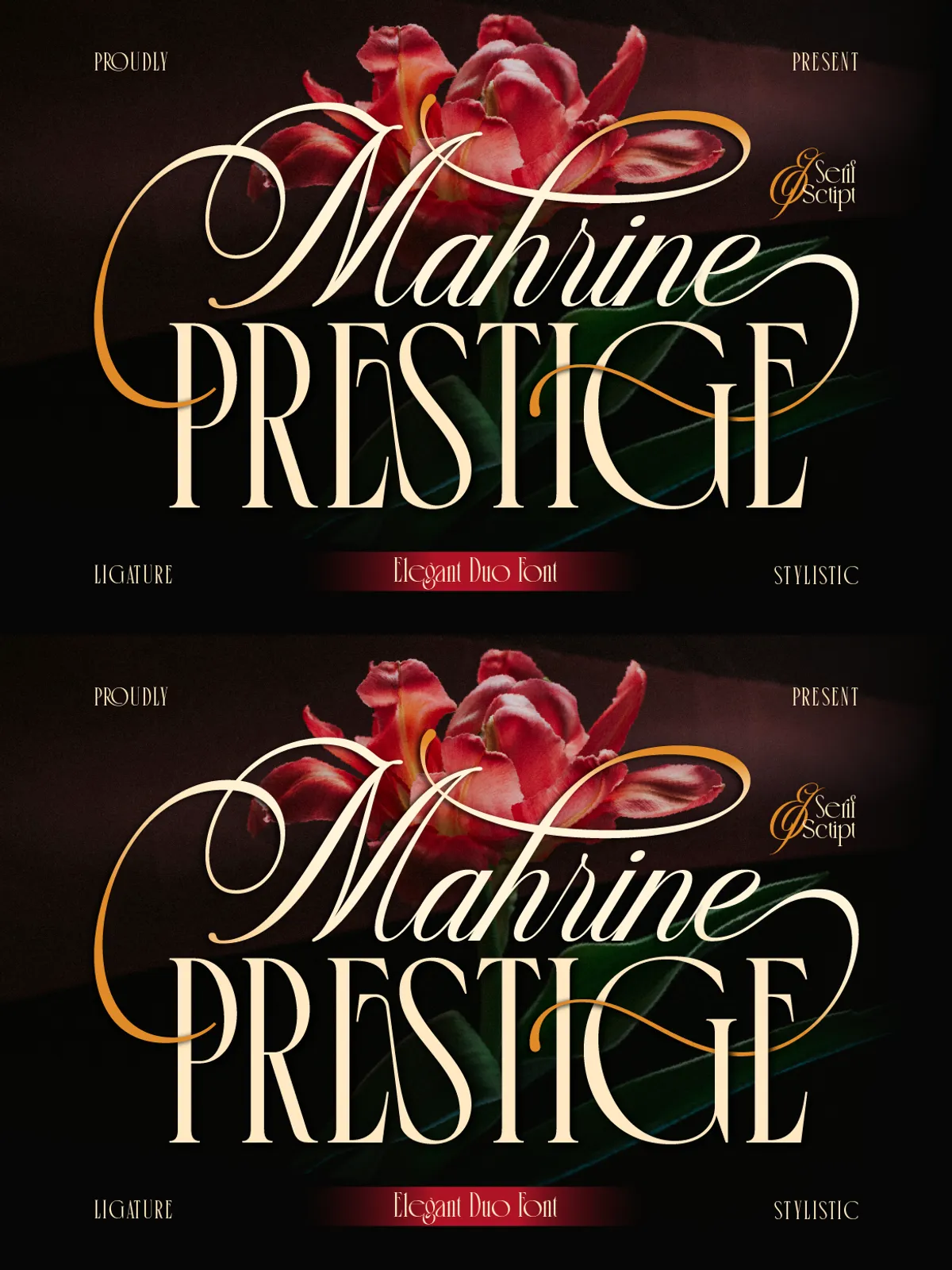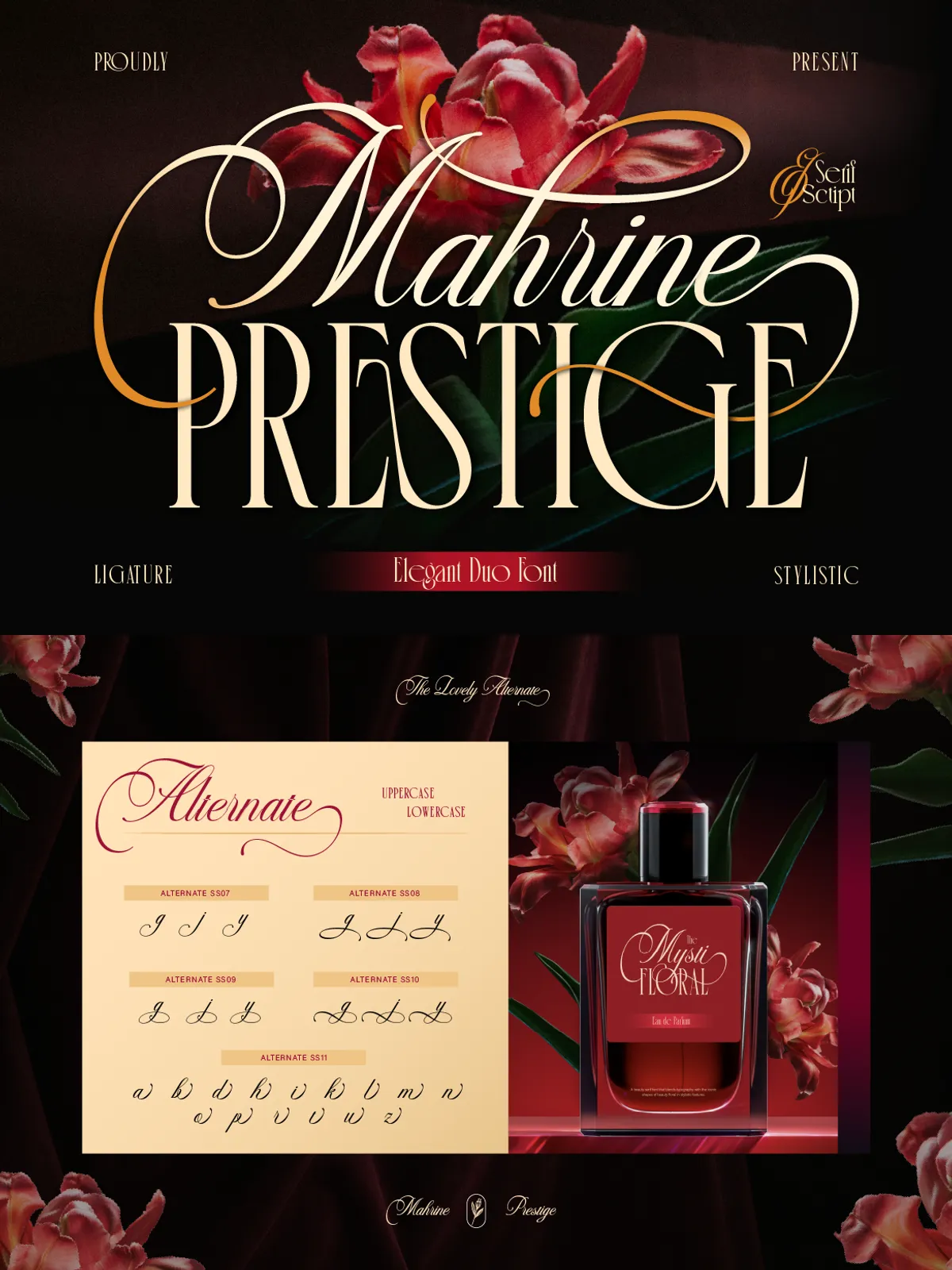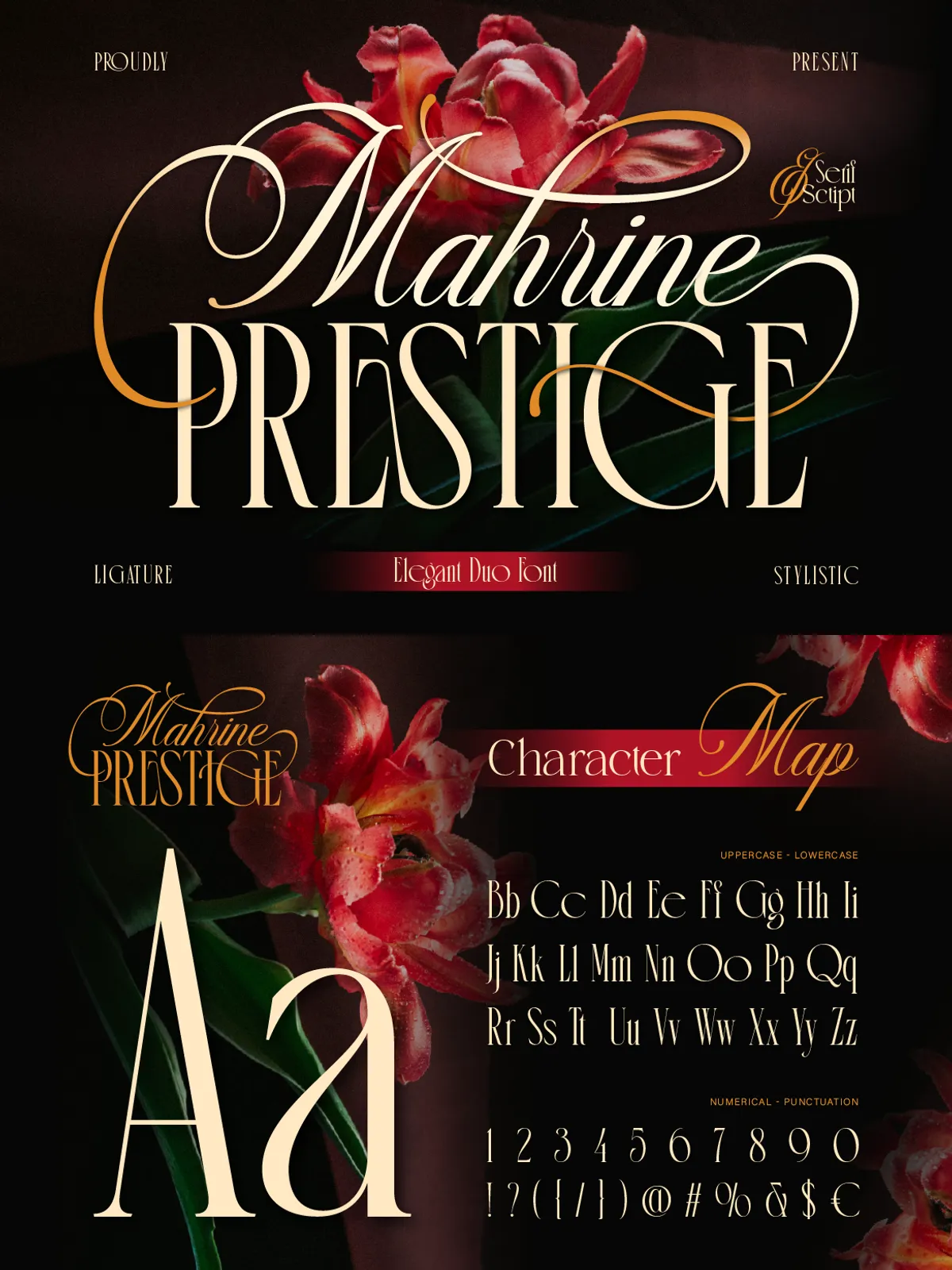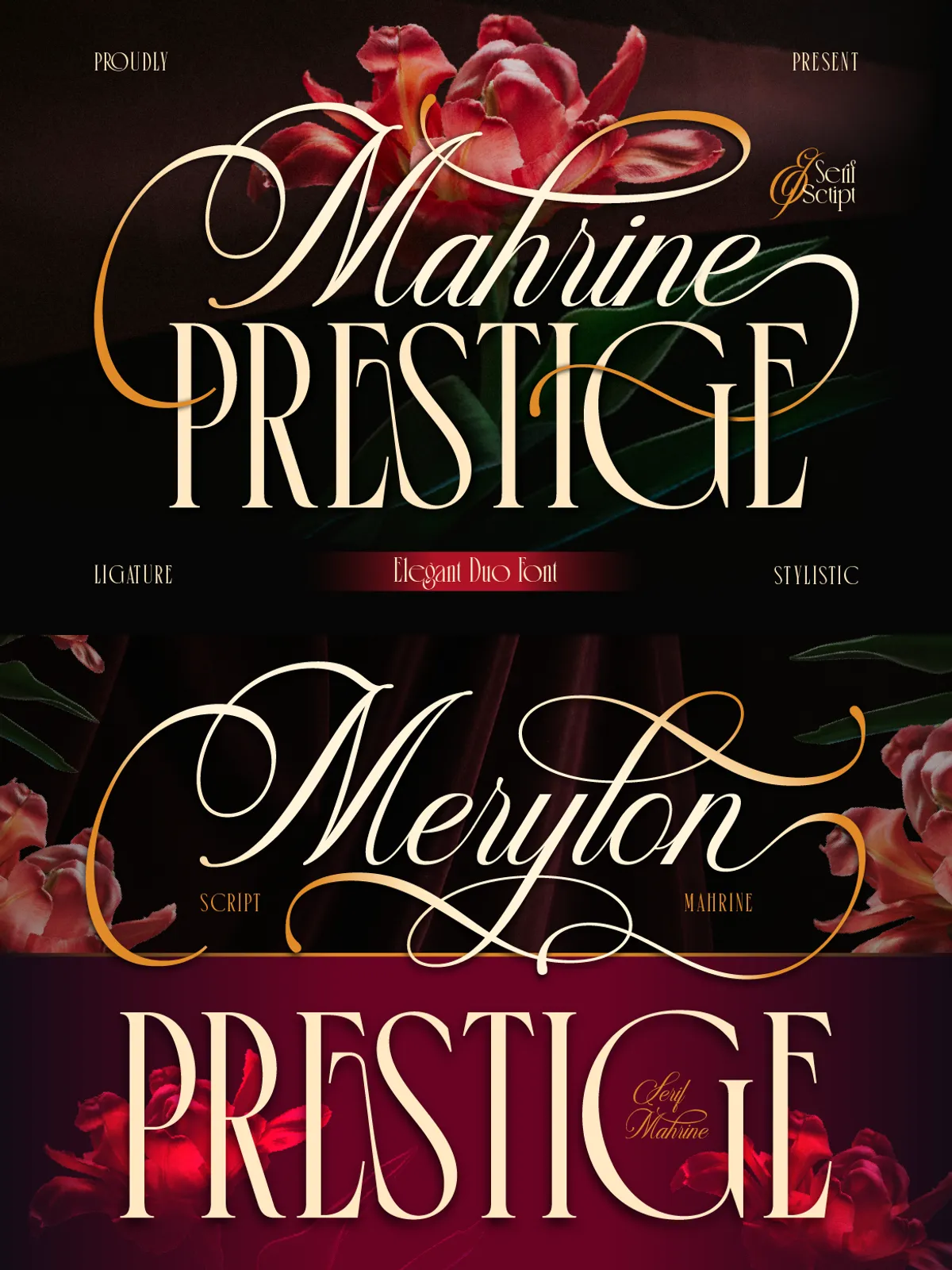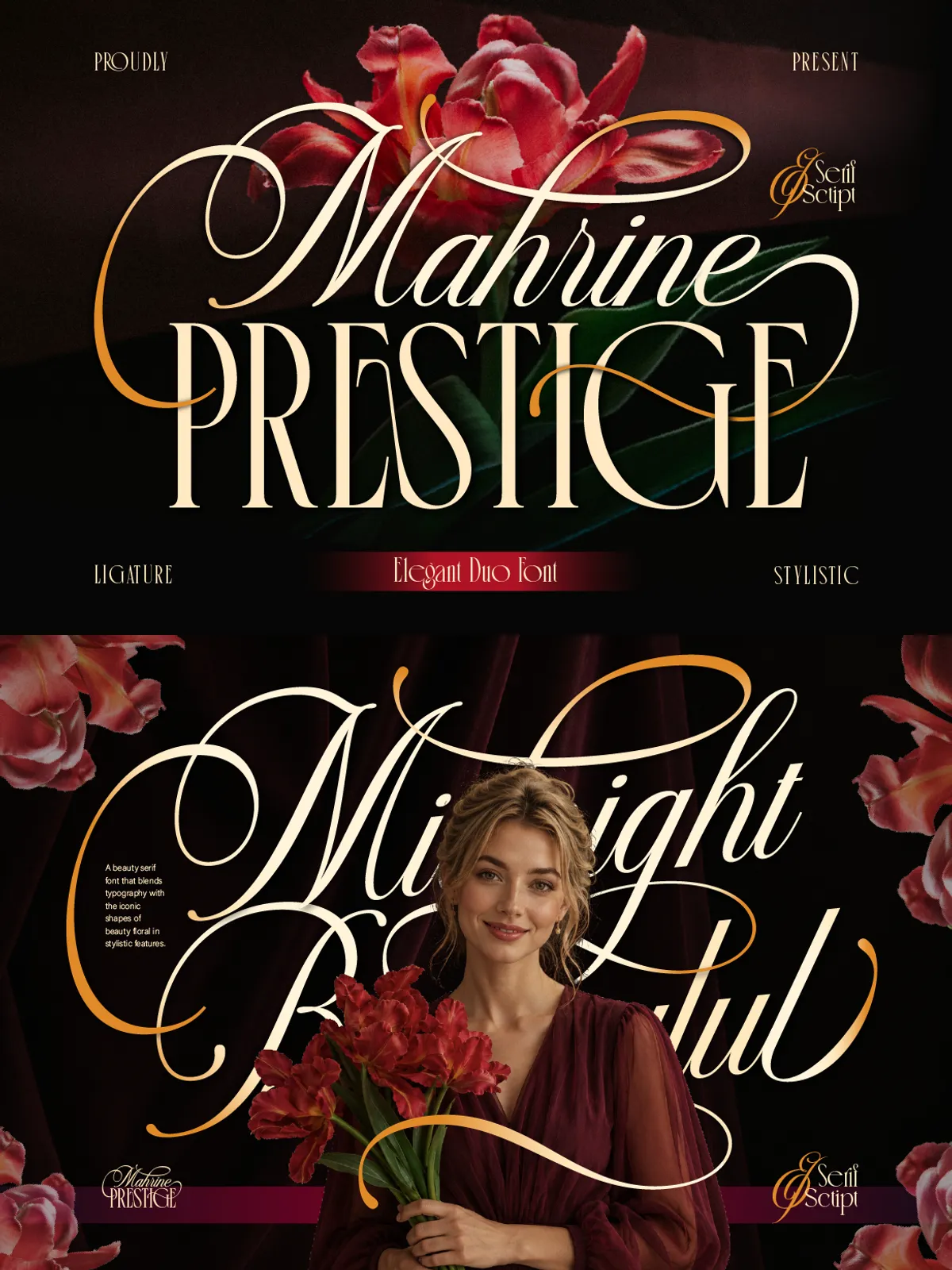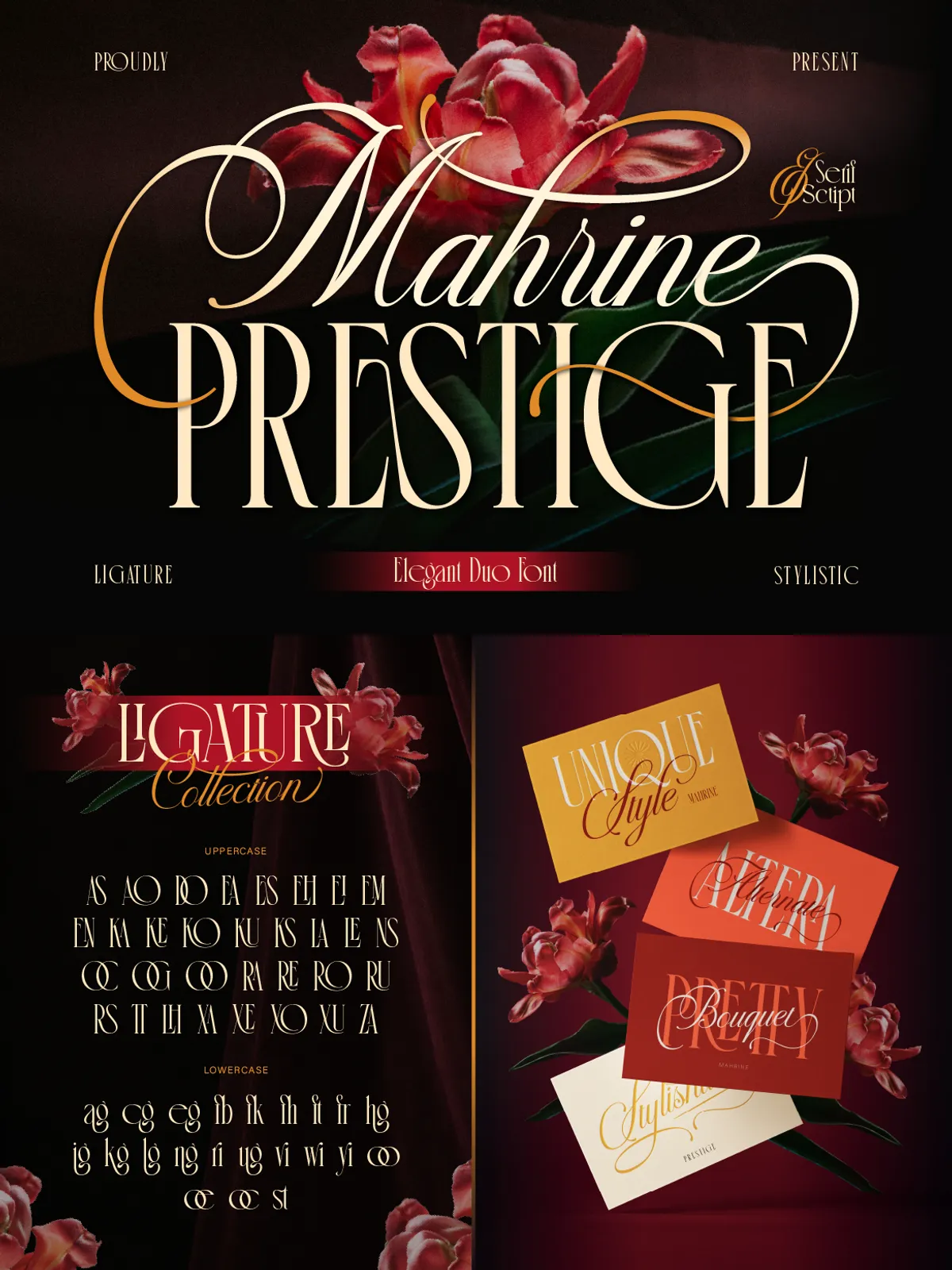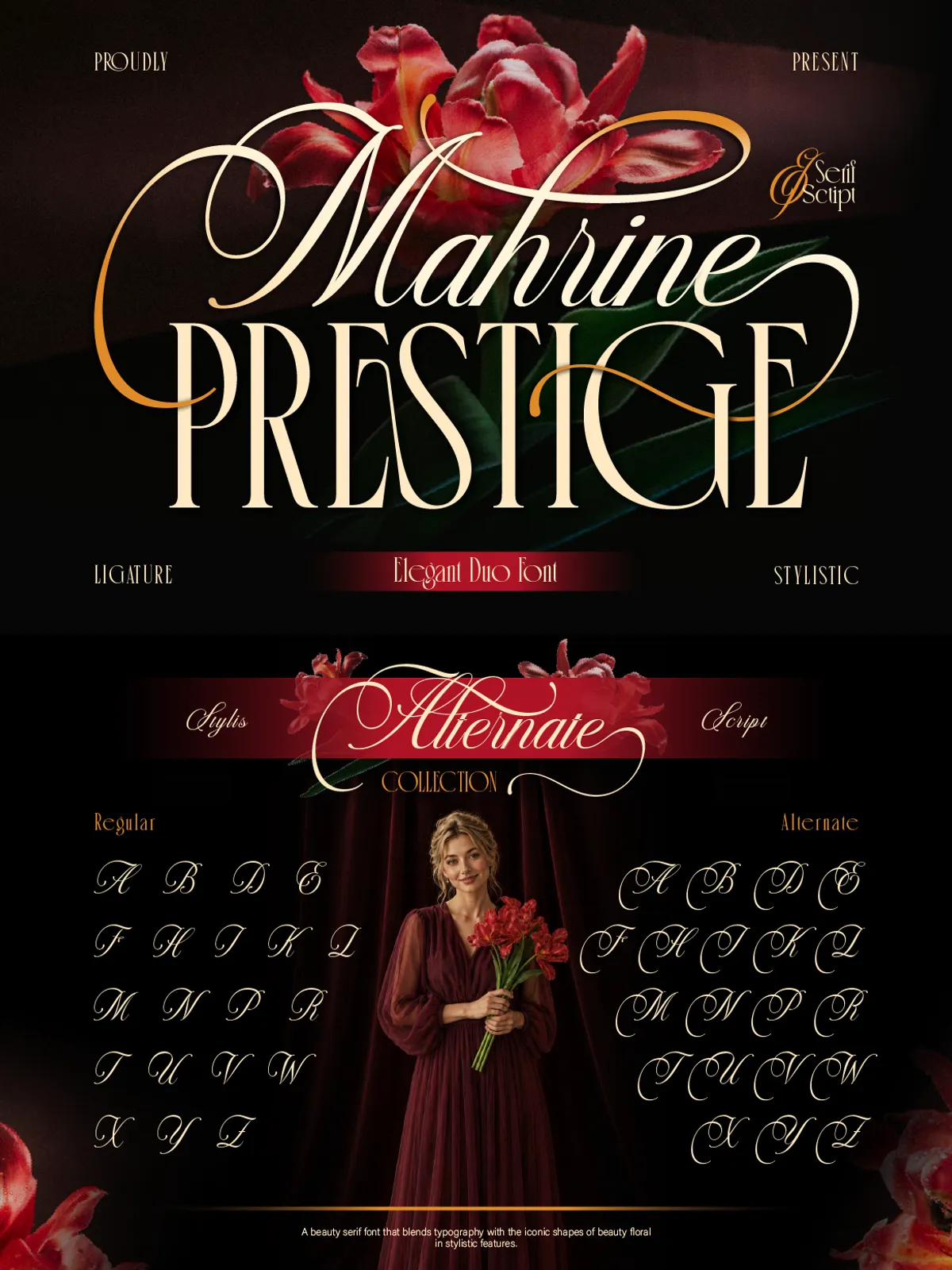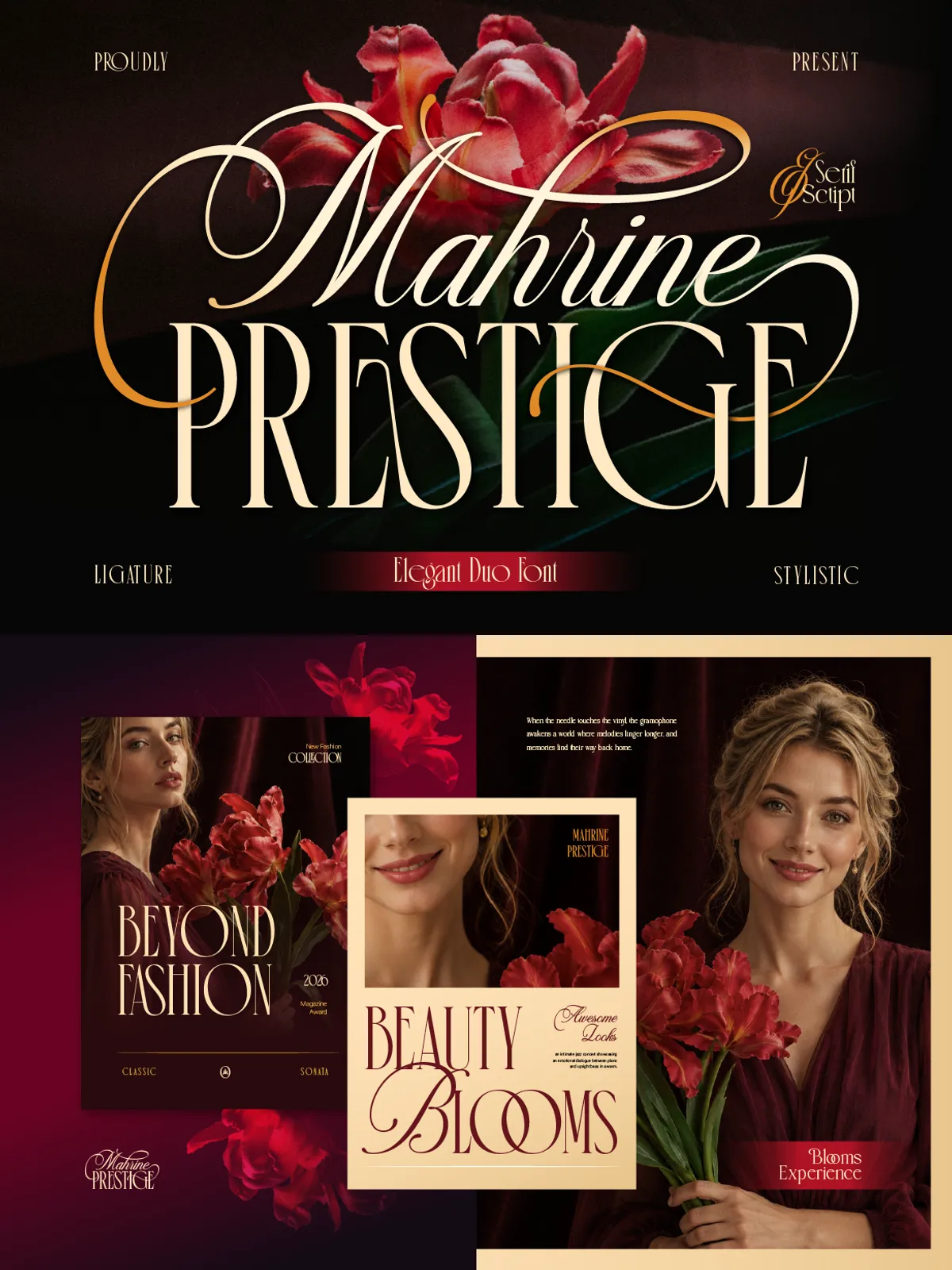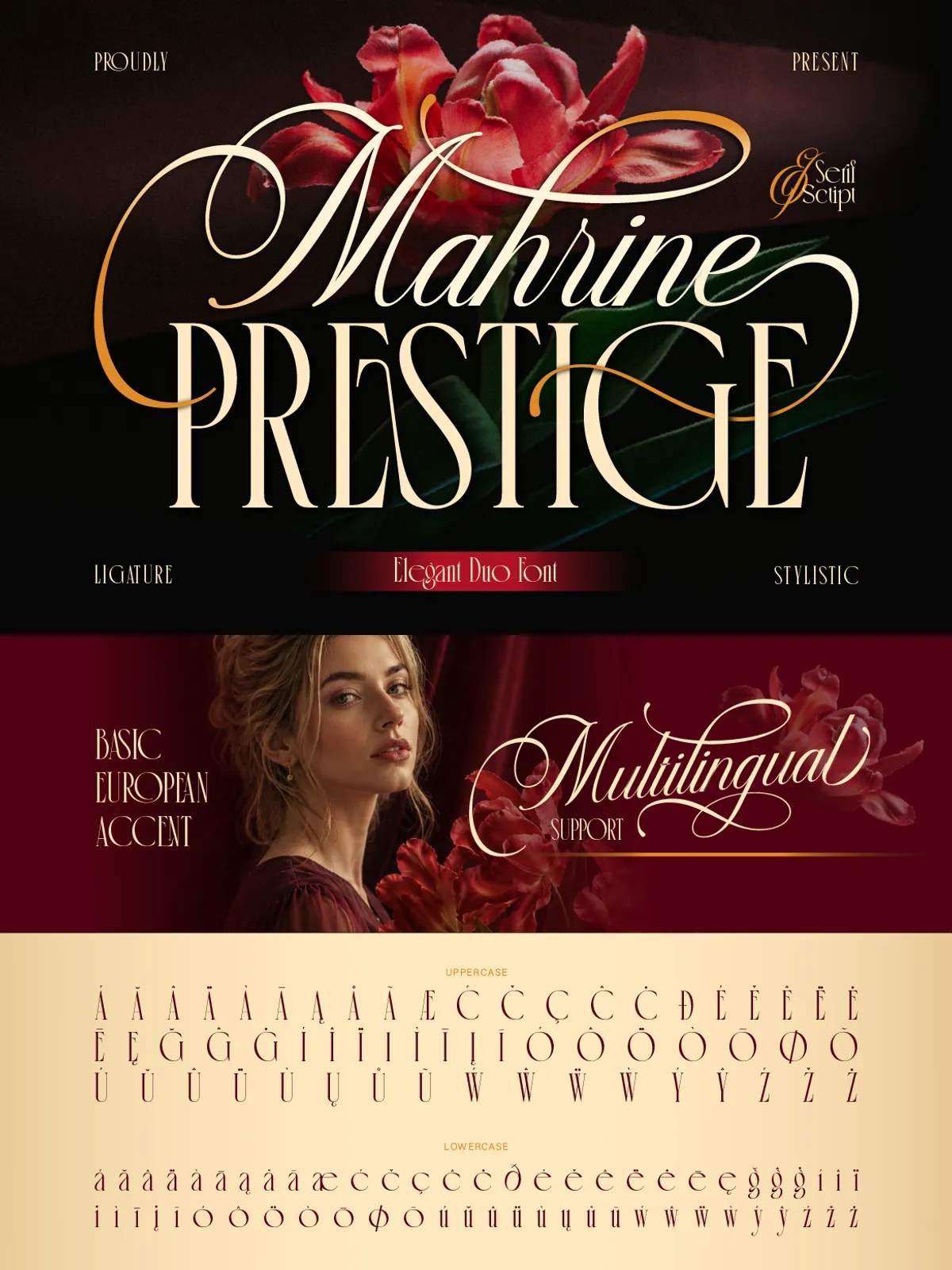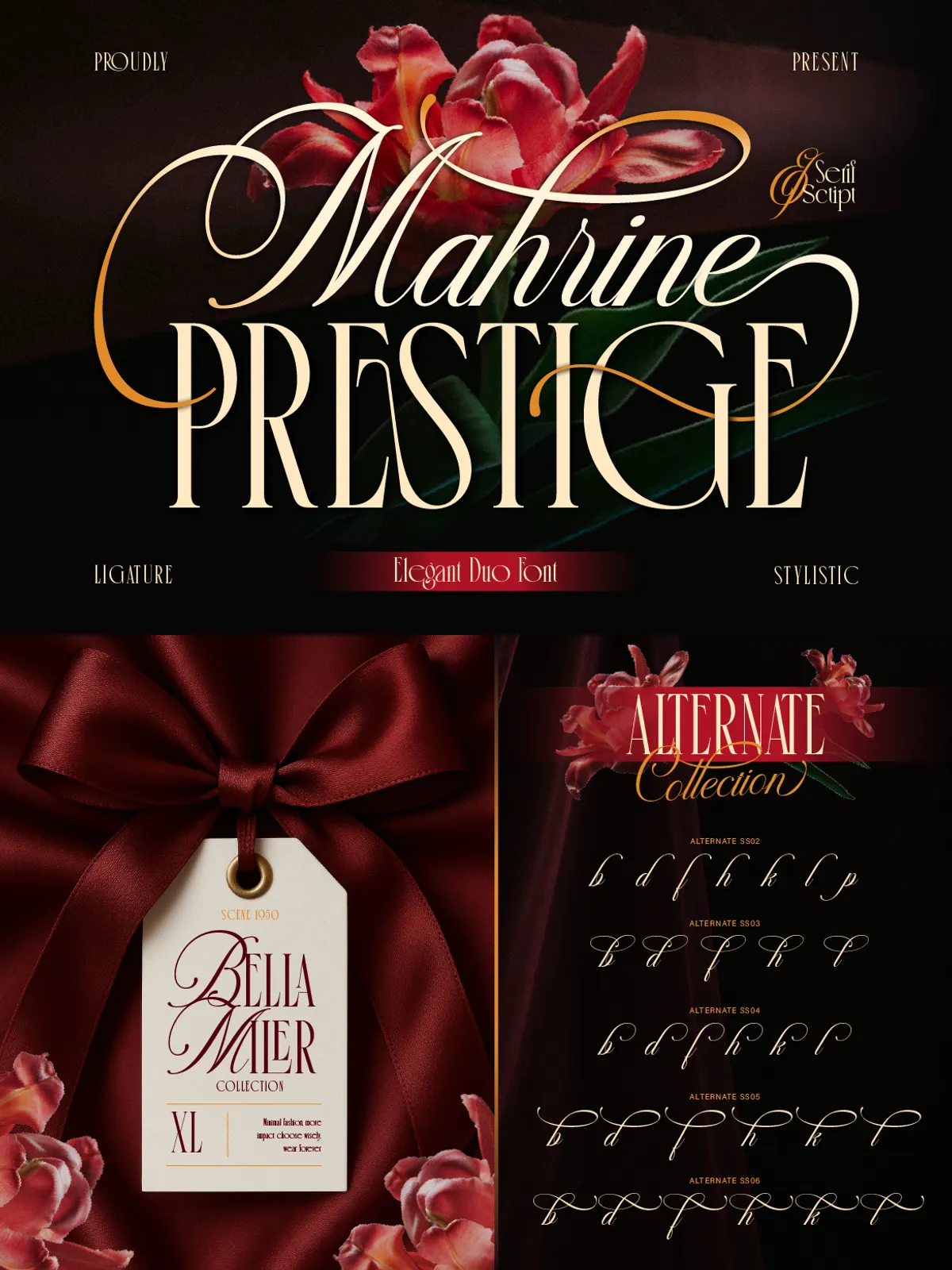
Mahrine Prestige represents the pinnacle of elegant typography, meticulously crafted as a refined duo font that harmoniously blends a high-contrast serif with a flowing, expressive script. This pairing is designed to create a timeless and luxurious typographic look that commands attention while maintaining an air of sophistication. The serif component features a clean structure, elegant proportions, and sharp contrast, making it an ideal choice for sophisticated headlines and editorial layouts that require clarity and grace. Meanwhile, the script counterpart brings a graceful touch with smooth curves and expressive swashes, adding a unique personality to the design without overpowering the visual hierarchy.
Design Harmony and Versatility
A Perfect Pairing
What makes Mahrine Prestige truly special is the way the two typefaces work together. The sturdy, structured nature of the serif provides a solid foundation, while the fluidity of the script adds a dynamic, human touch. This combination creates a harmonious pairing that works beautifully across a wide range of creative projects. Whether you are designing a high-end brand identity or a personal wedding invitation, Mahrine Prestige offers the versatility needed to adapt to any aesthetic requirement. The typefaces are designed to complement each other, ensuring that your designs remain cohesive and visually appealing regardless of the medium.
Target Applications
Mahrine Prestige is perfect for a variety of high-end applications:
- Branding & Logo Design: Create a memorable and luxurious visual identity for premium brands.
- Editorial & Magazine Layouts: Elevate your publications with sophisticated typography that enhances readability and style.
- Wedding Invitations: Add a touch of elegance and romance to your special day’s stationery.
- Luxury Packaging: Make your products stand out with sophisticated labeling and packaging design.
- Social Media & Marketing Materials: Engage your audience with high-quality, stylish content that reflects professionalism and taste.
Comprehensive Features
Extensive Character Set
Mahrine Prestige is equipped with a full character set, including uppercase and lowercase letters from A to Z. It also includes numerals, punctuation marks, and various alternates and ligatures that allow for greater typographic control and stylistic flair. The inclusion of multilingual support ensures that the font can be used globally, catering to a wide range of languages and character sets. This comprehensive support makes Mahrine Prestige a reliable choice for international projects.